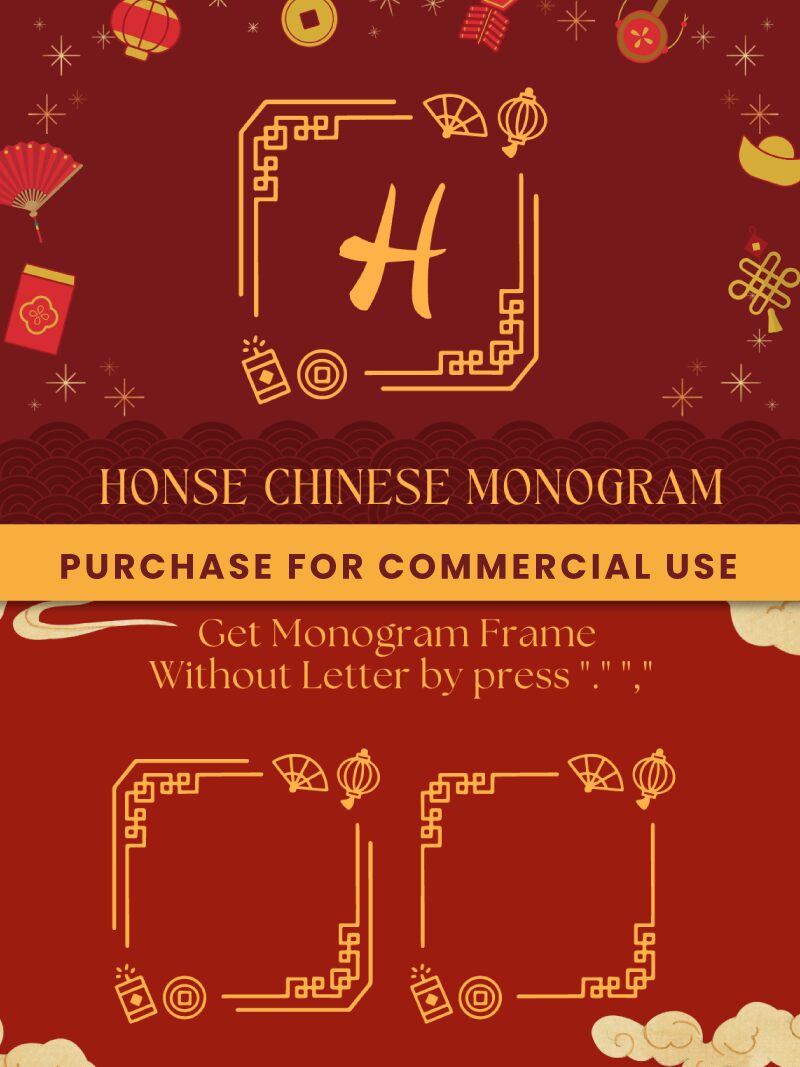
Honse Chinese Monogram
Honse Chinese Monogram emerges as a captivating display font with a decorative flair, meticulously crafted by Attype Studio. This font boasts an intricate design that marries the essence of traditional Chinese calligraphy with contemporary monogram aesthetics. Each character is adorned with delicate patterns and motifs reminiscent of ancient Chinese art, exuding an exquisite and ornamental quality.
The aesthetic appeal of Honse Chinese Monogram lies in its balanced fusion of historic elegance and modern design principles, making it an excellent choice for projects seeking to impart a sense of cultural richness and artistic sophistication. Its decorative style lends itself to a wide range of creative endeavors, from branding and logo design to editorial graphics and event invitations.
With Honse Chinese Monogram, designers can elevate their work to new heights by utilizing its unique typeface to command attention and add a touch of opulence to any visual composition. Whether employed in large displays or as a distinctive accent, this font's style is sure to make a lasting impression across diverse applications.